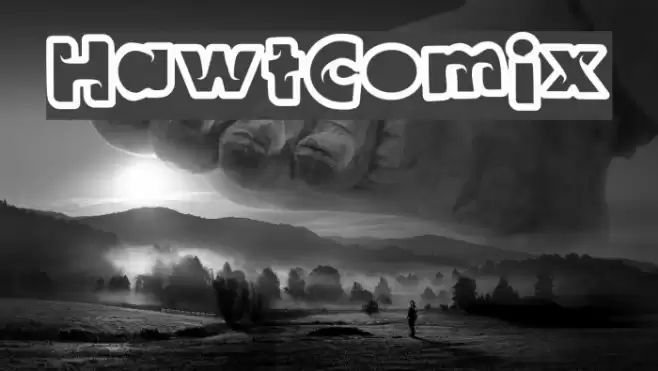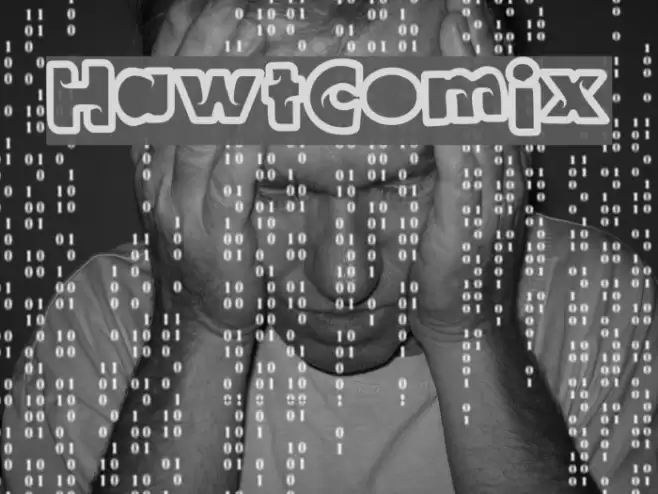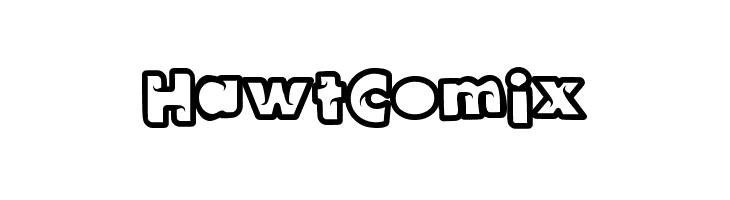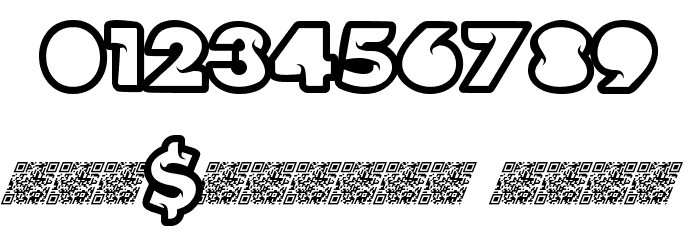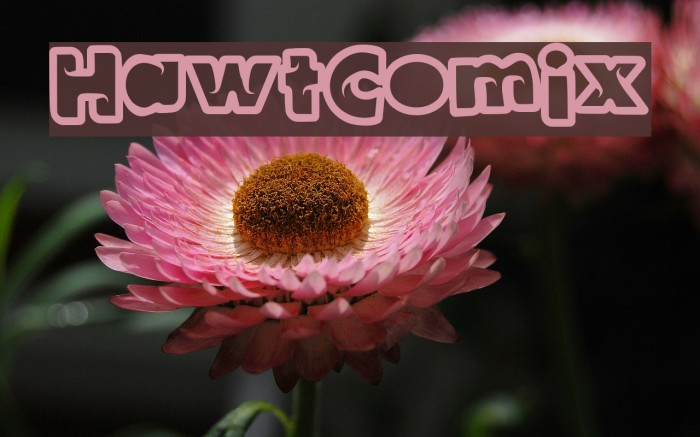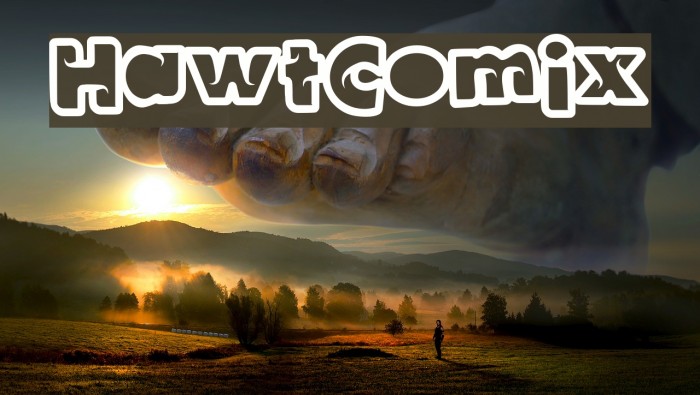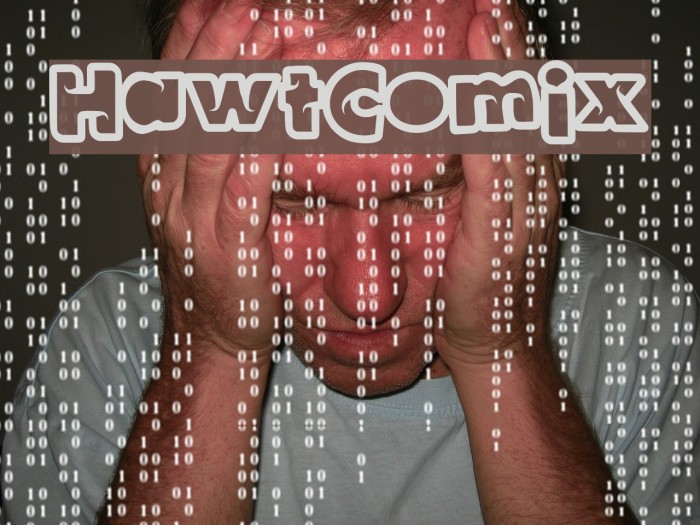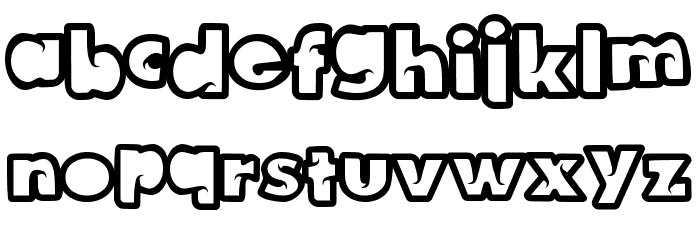
HawtComix Font
HawtComix Description
This font features a bold, playful style with thick outlines and a cartoonish appearance. The characters are rounded and have a bubble-like quality, making them stand out with a fun and energetic vibe. The uppercase and lowercase letters maintain a consistent style, with a slight variation in size and shape to add character. Numbers and special characters follow the same design principles, ensuring a cohesive look across all elements. The font's boldness and unique style make it ideal for projects that require a lively and engaging visual impact.
A bold, playful font with thick outlines and a cartoonish style from Cartoon fonts.
- Proposed Projects: Ideal for comic books, children's books, playful branding, and eye-catching posters.
- Overall Style: Playful, Cartoonish